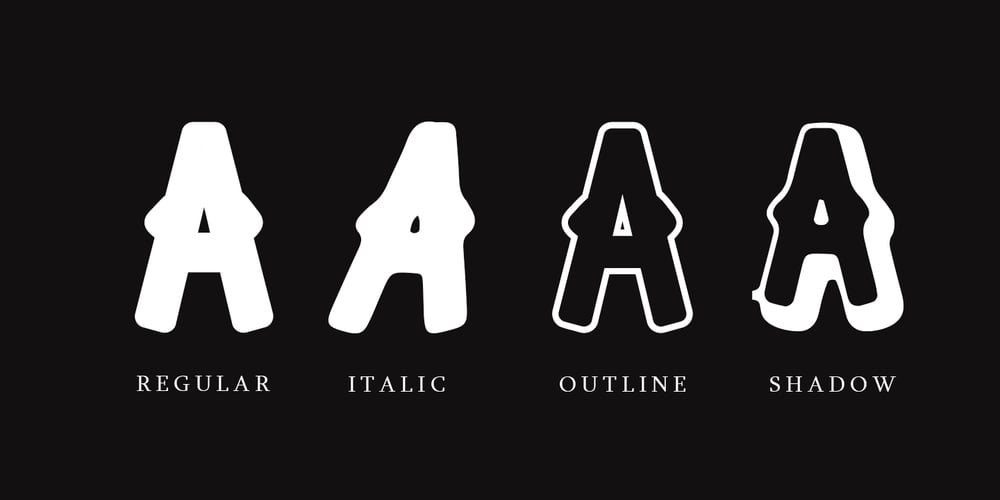
Shourtcut Font Family was designed by Asep Rendi and published by Arendxstudio. Shourtcut contains 4 styles and family package options. Shourtcut is a font designed for the needs of all your retro-themed projects and can be implemented to all the designs you want to make.